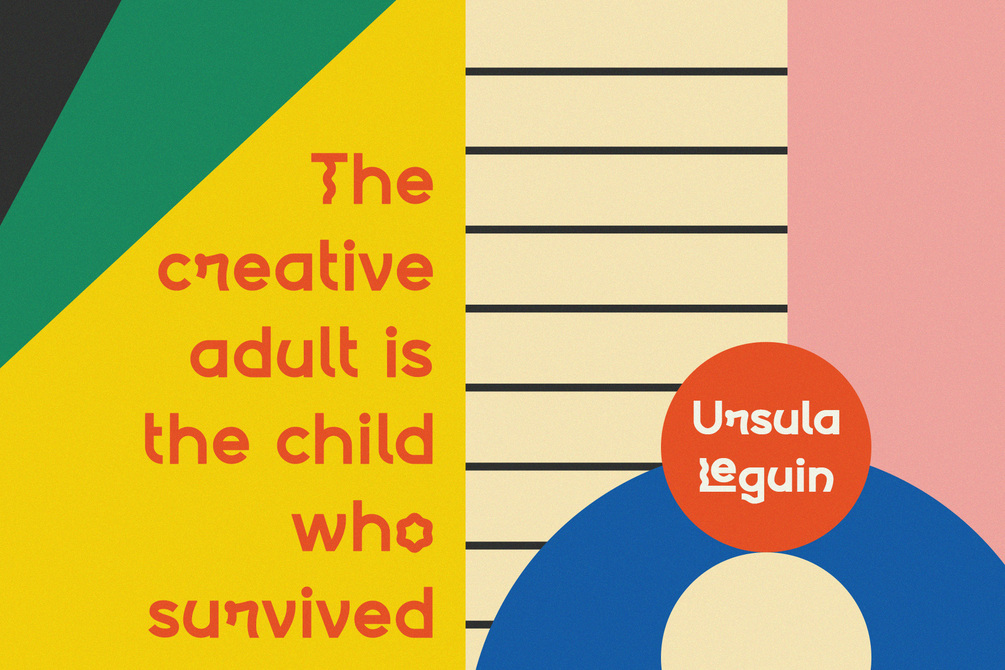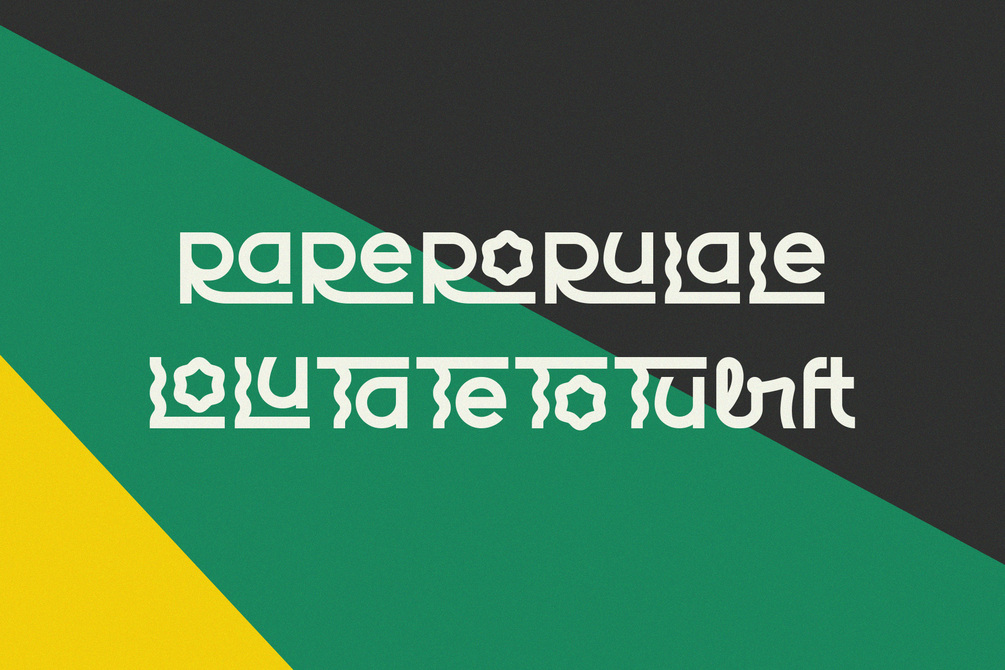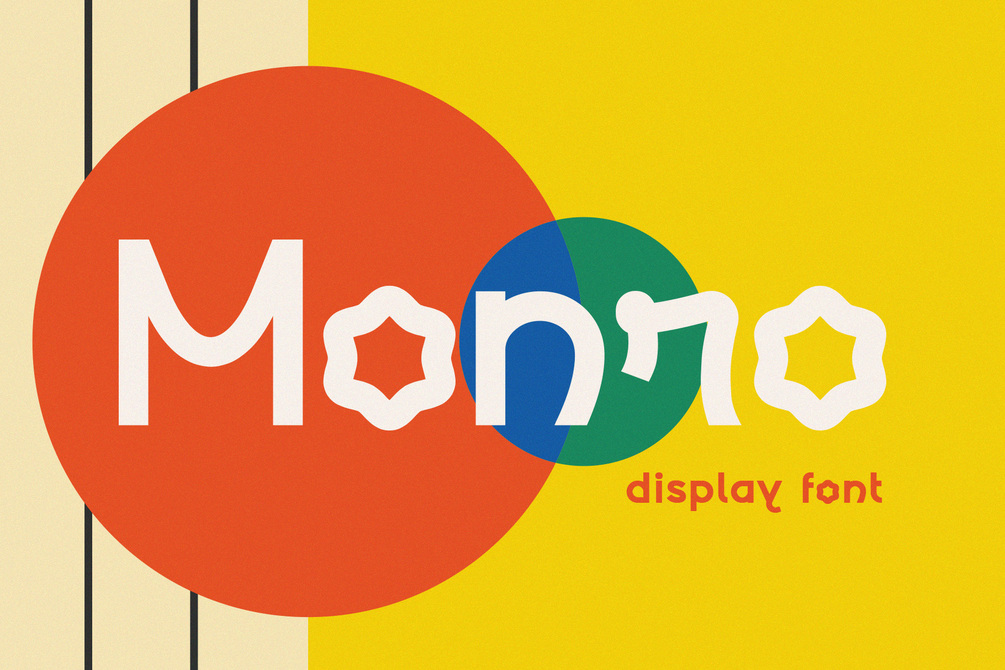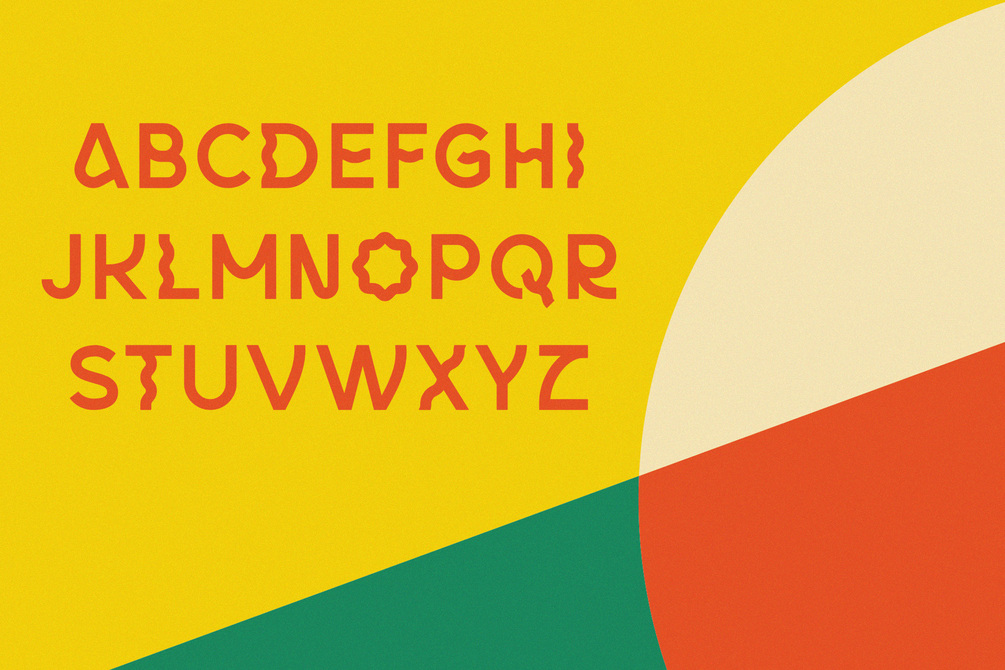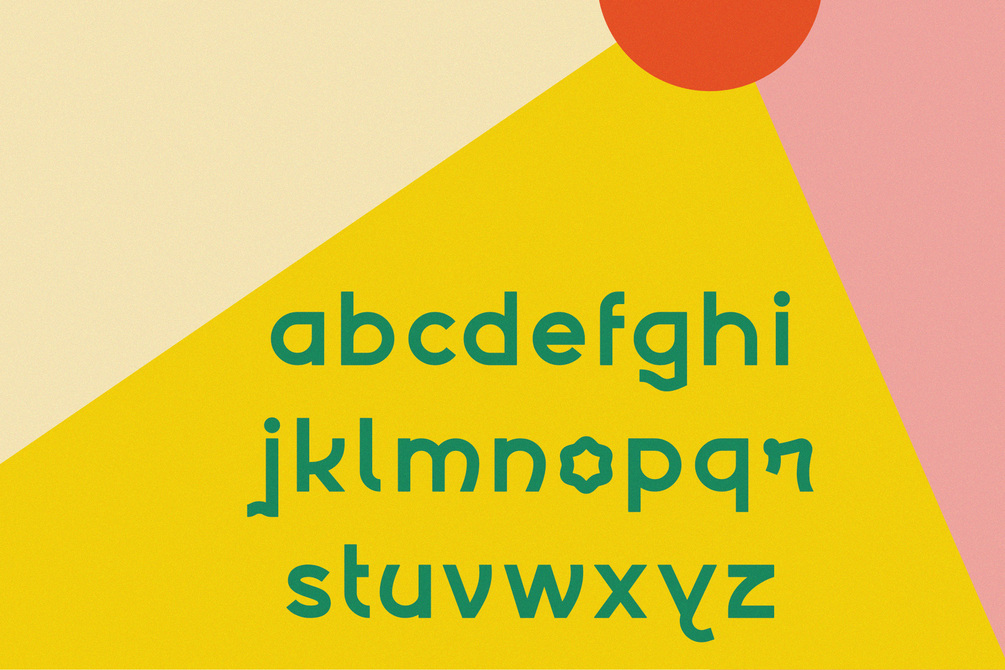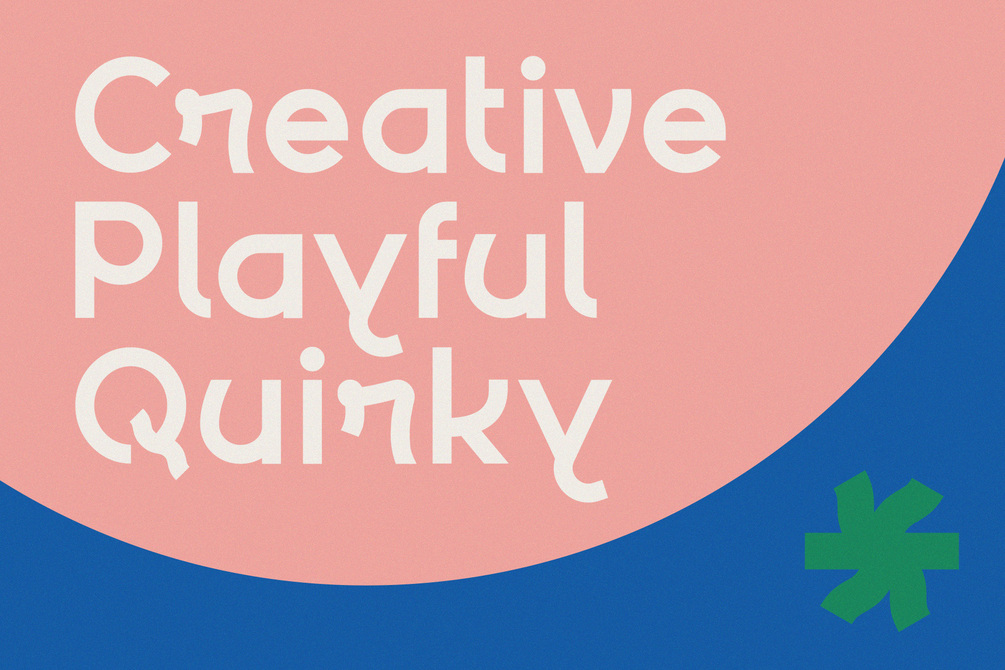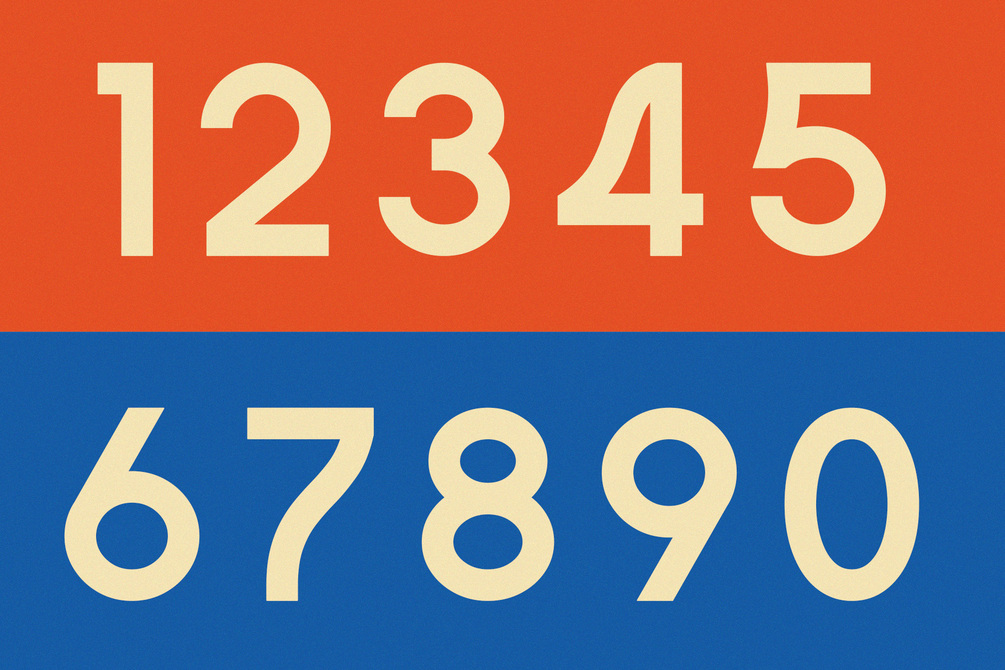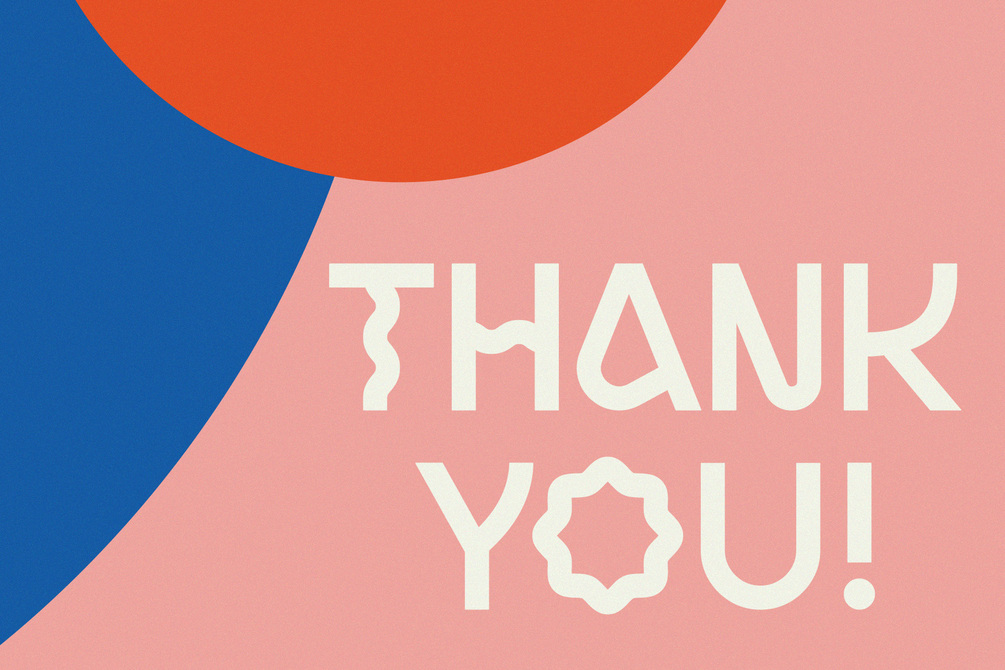
Monro - Quirky Display Typeface
Introducing Monro, a disruptive typeface with shapes inspired by the aesthetics of the 80s and 90s. Monro is an ideal typeface for large size display texts and wordmarks, its eye-catching quirky letters grab the readers attention and makes them notice the message being sent across.
The font is also perfect for contemporary branding, social media, flyers, headlines, magazines, and more. If you're searching for a geometric typeface that offers versatility as well as a clean/sleek build, then Monro is for you!